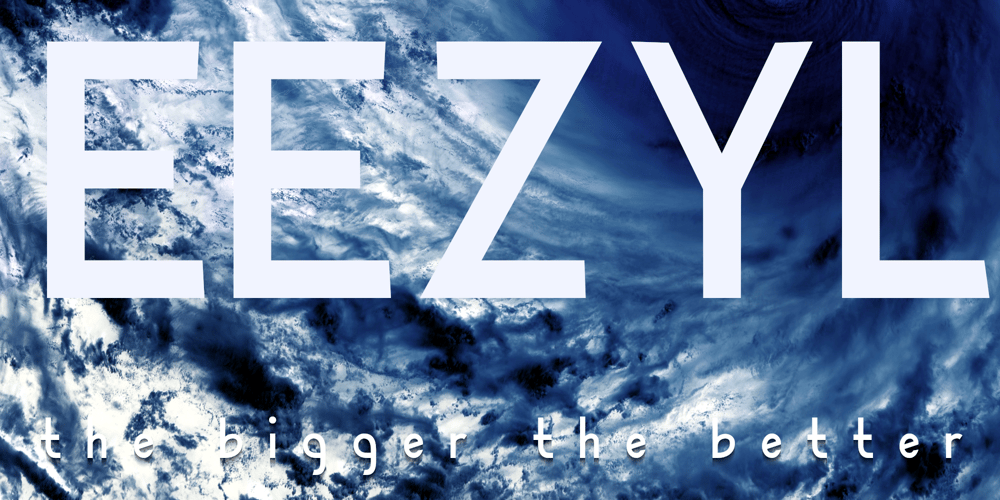
Eezyl Font Family was designed by Partu Haodis and published by Partu Haodis. Eezyl contains 1 styles and family package options. A title font that looks better as larger the font size. First of all, it is designed for use in the upper-case format. Feature style: futurism, space, modernism, glyph variety (uniqueness (minimum automatic generation)). A kind of āsā in the lower-case format sets the tone and emphasizes the character, formed in the Prime Numbers Nebula ā they determined its appearance, and influenced the style as a whole.Particular attention is paid to the kern: the kern table is formed manually, taking into account absolutely all the glyphs included in the font-family.Two types of stress (grave, acute) for all letter glyphs.The font contains basic Latin and several additional tables, as well as three types of quotation marks, a non-breaking space and a hyphen, a short, medium, and long dash. For a set of mathematical expressions there are centrifugal signs: equal, minus (not a hyphen or minus-hyphen), plus, multiplication (X-shaped and dot), plus-minus, division.The font was made for 3 years.